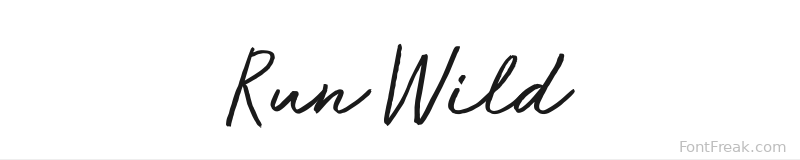
Run Wild
The "Run Wild" font by BLKBK Fonts is a captivating handwritten typeface that embodies a sense of adventure and spontaneity. Its casual, free-flowing style evokes the spirit of exploration, making it a perfect choice for projects that aim to inspire a sense of freedom. The font features a moderate stroke weight with subtle variations that create an organic feel, while the slightly irregular spacing enhances its handwritten aesthetic. This adds a personal touch, making it suitable for various creative endeavors.
One of the standout characteristics of the Run Wild font is its playful yet elegant curves, which invite the viewer to engage with the text. The design lacks overly decorative elements, ensuring legibility while still maintaining a charmingly informal vibe. This simplicity allows it to shine in a variety of applications. Best use cases for the Run Wild font include wedding invitations, where its whimsical nature can beautifully complement romantic themes; movie posters, particularly for indie films that want to convey a unique narrative; restaurant menus that aim for a casual, inviting atmosphere; and social media graphics that need to capture attention in a crowded feed.
The target audience for this font includes graphic designers looking to add a distinctive flair to their work, small business owners who want to stand out with eye-catching branding, and content creators seeking a fresh, relatable style for their projects.
What makes the Run Wild font truly special is its ability to blend sophistication with a relaxed, adventurous spirit. Its versatility allows it to adapt to both playful and serious contexts, making it a valuable addition to any designer's toolkit. With the option for a Run Wild font free download, there's no reason not to explore its potential in your next creative project.